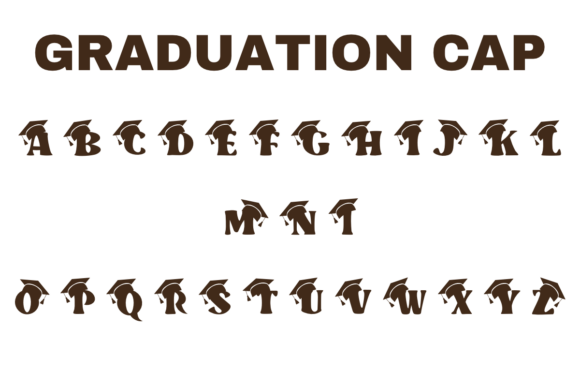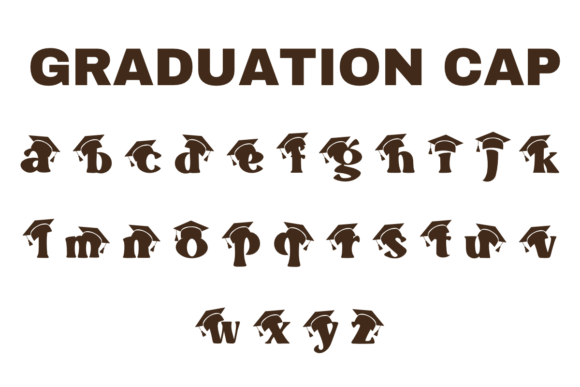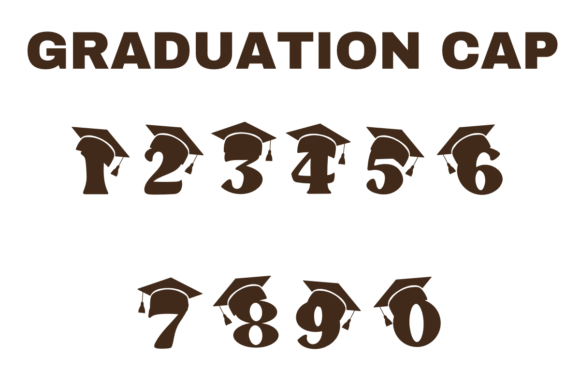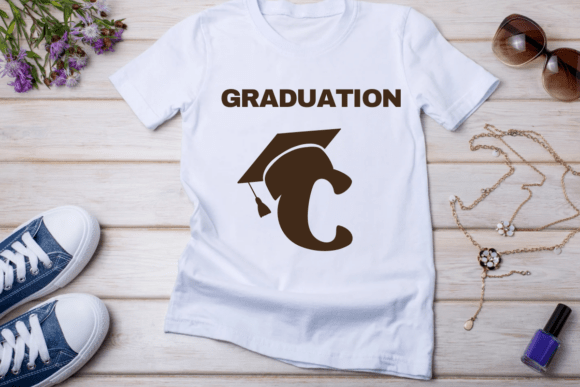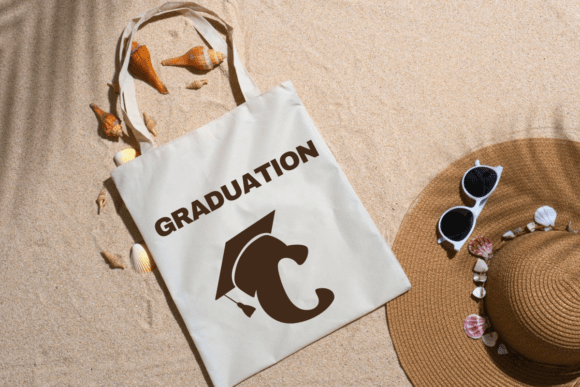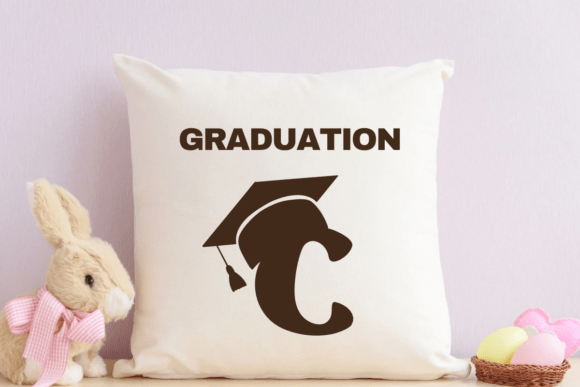
Graduation Cap Font: Elevate Your Designs with a Decorative Touch
Are you looking for a font that adds a touch of personality and whimsy to your designs? Look no further than the Graduation Cap font! This decorative font is perfect for crafters, designers, and anyone looking to add a unique flair to their projects. In this article, we’ll explore the versatility of the Graduation Cap font and provide inspiration for using it in various designs.
What is Graduation Cap Font?
Graduation Cap is a decorative font that features a playful, hand-drawn design. The font is reminiscent of graduation caps, with a similar look and feel that makes it perfect for academic-themed designs, parties, and celebrations. However, its versatility extends far beyond graduation-themed designs, making it a great addition to any designer’s font collection.
Uses for Graduation Cap Font
Graduation Cap font is a versatile font that can be used for a wide range of designs, including:
- Note-taking and journaling: Add a decorative touch to your notes and journal entries with Graduation Cap font. It’s perfect for headings, titles, and emphasis.
- Greeting cards: Create personalized and unique greeting cards for special occasions, such as birthdays, graduations, and holidays.
- Banners and signs: Use Graduation Cap font to create eye-catching banners and signs for parties, events, and promotions.
- Social media posts: Add a touch of personality to your social media posts with Graduation Cap font. Use it to create engaging headings, titles, and graphics.
- Mugs and water bottles: Design personalized mugs and water bottles with Graduation Cap font for a unique and functional gift.
- Shirts and apparel: Create custom t-shirts, hoodies, and other apparel with Graduation Cap font for a fun and stylish look.
- Stationery and paper goods: Use Graduation Cap font to design custom stationery, notebooks, and paper goods, such as stickers, washi tape, and gift tags.
Tips for Using Graduation Cap Font
To get the most out of Graduation Cap font, follow these tips:
- Use it sparingly: Graduation Cap font is decorative and playful, so use it sparingly to avoid overwhelming your design.
- Pair it with other fonts: Combine Graduation Cap font with other fonts to create visual interest and contrast.
- Experiment with colors: Graduation Cap font looks great in a variety of colors, so experiment with different hues to find the perfect match for your design.
- Pay attention to size: Graduation Cap font can be quite bold, so adjust the size to fit your design needs.
Graduation Cap font is a versatile and decorative font that can add a touch of personality and whimsy to your designs. Whether you’re a crafter, designer, or simply looking for a unique font for your projects, Graduation Cap font is a great choice. With its playful design and wide range of uses, it’s perfect for various designs, from note-taking and journaling to banners, social media posts, and more. So why not give Graduation Cap font a try and see how it can elevate your designs?